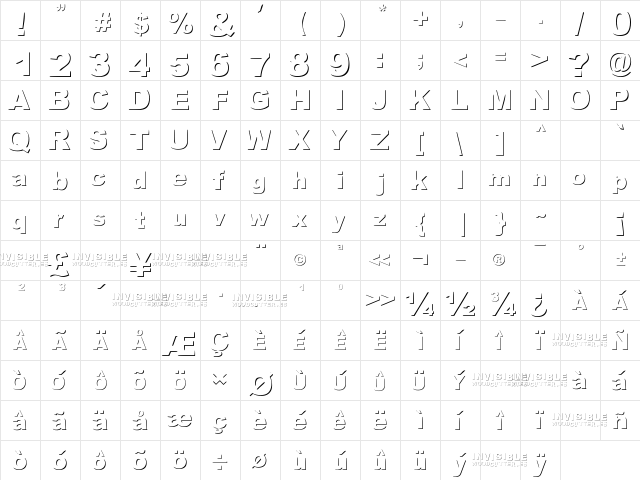
woodcutter invisible Regular
Design Context for woodcutter invisible Typeface
woodcutter invisible taps into classic Western woodtype traditions — bold, characterful, and impossible to ignore.
A natural fit for craft spirits, ranch branding, rodeo events, and Americana-inspired design work.
Font Pairing: Combine woodcutter invisible with a simple slab or neutral sans — period-accurate companions reinforce the vintage feel without competing for attention.
Pro Tip: Use woodcutter invisible for short, impactful bursts of text — it shines in poster headlines and product names rather than extended copy.